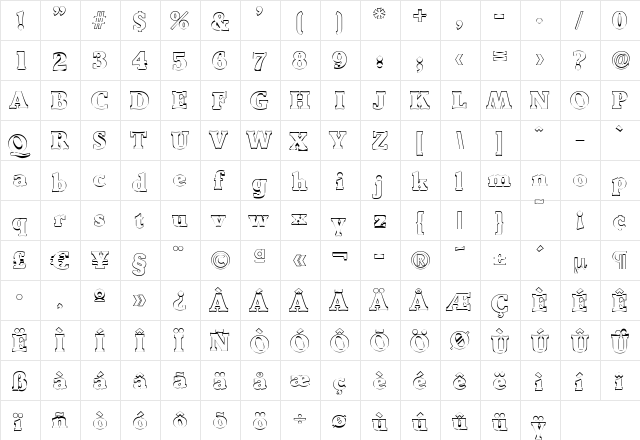
BenjaminBeckerOutline-Heavy Regular
Design Context for BenjaminBeckerOutline-Heavy Typeface
BenjaminBeckerOutline-Heavy brings ornamental detail and strong personality to headlines and identities, where visual impact matters more than quiet functionality.
Font Pairing: Pair with a clean neutral sans-serif for body copy to let BenjaminBeckerOutline-Heavy's character lead without overwhelming the composition.
Pro Tip: Treat BenjaminBeckerOutline-Heavy as the centrepiece of your typographic hierarchy. One strong heading set in a decorative face can carry an entire layout.